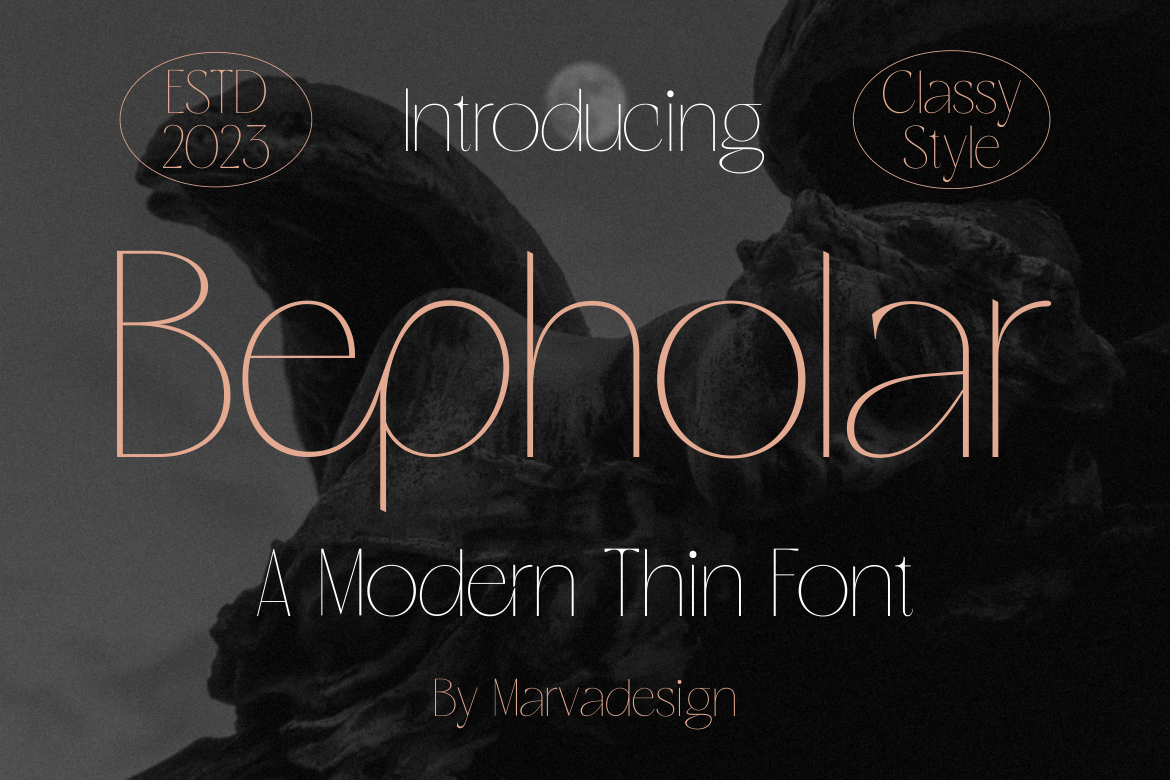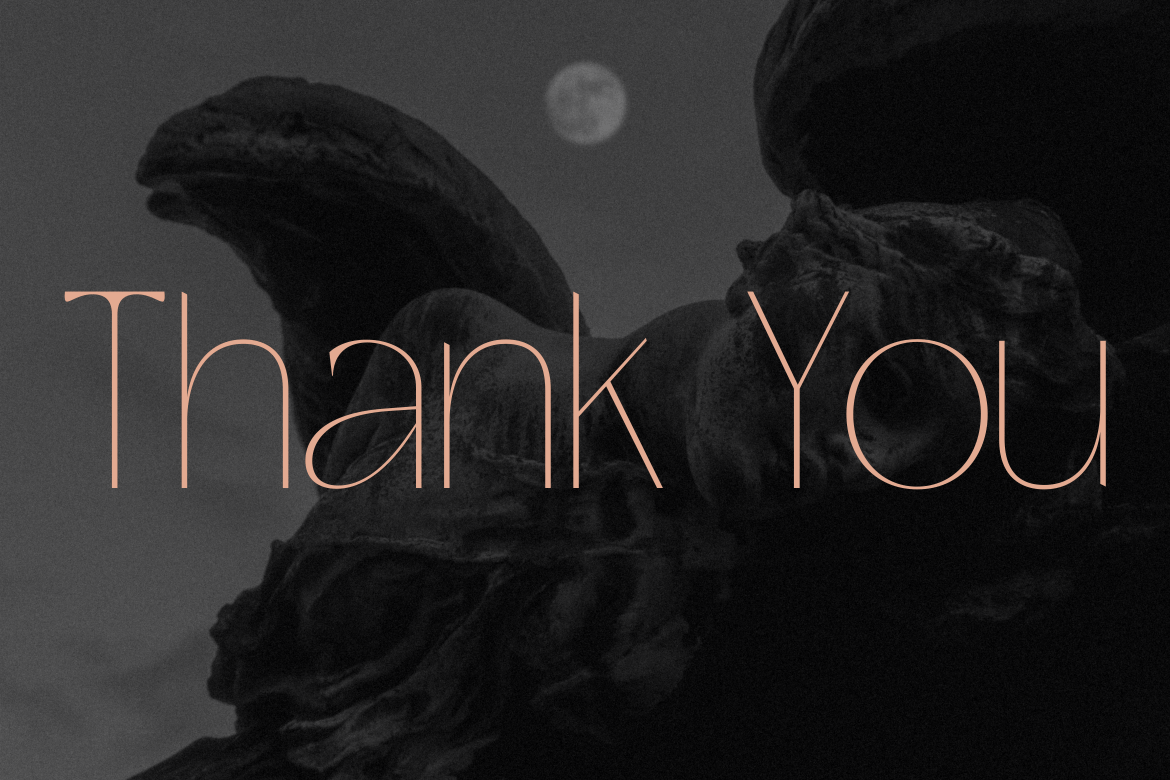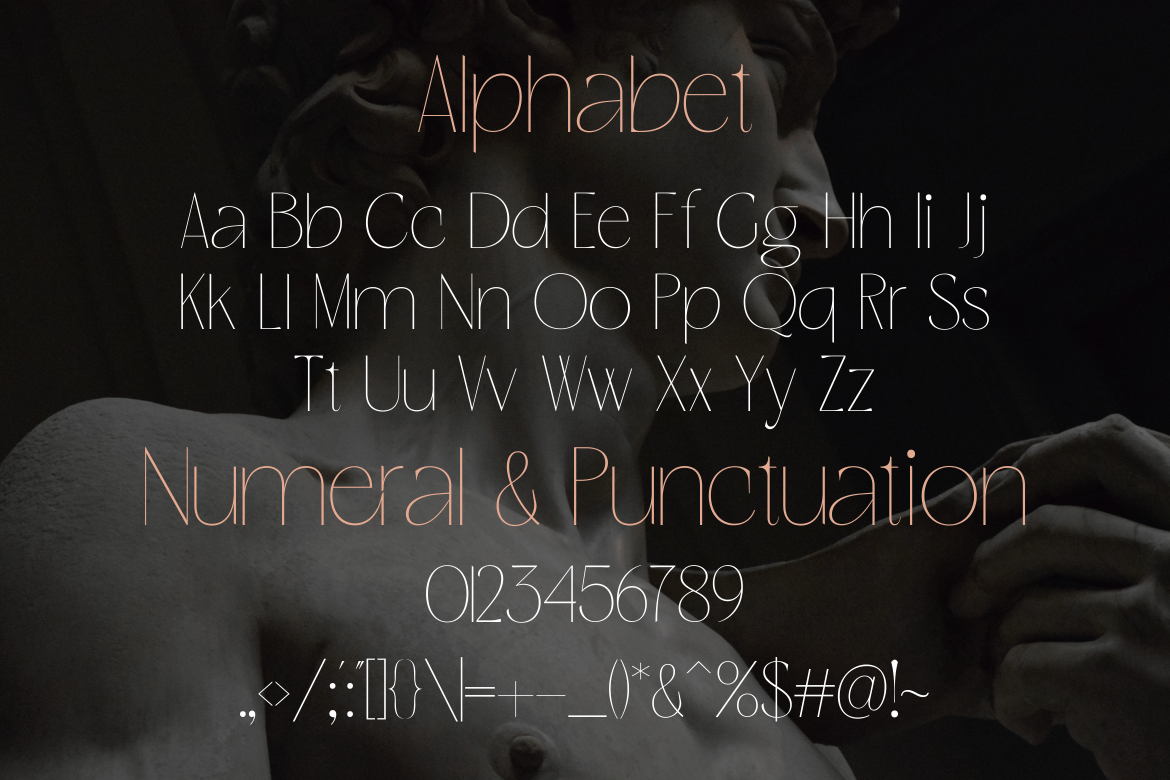
Bepholar – A Modern Thin Font
Introducing our new product Bepholar Font – Modern Font
Bepholar Font** – Modern Font is a bold and authentic display font. The font is suitable for any branding project like logo, t-shirt printing, Product and many more. outstanding in a wide range of contexts.